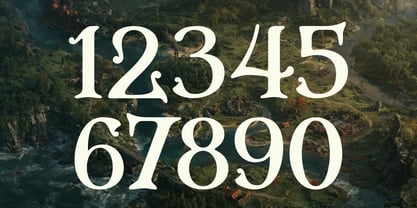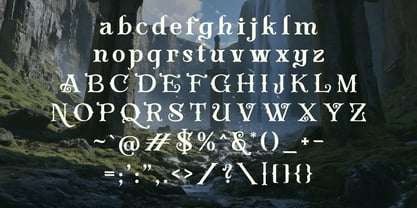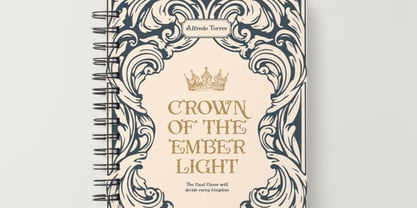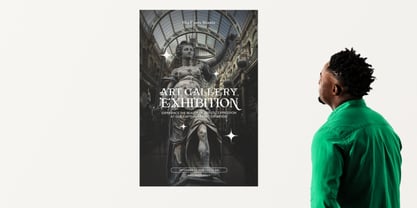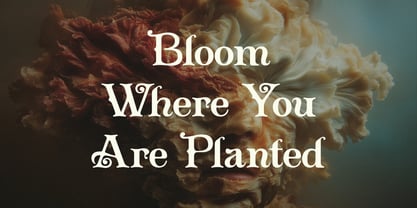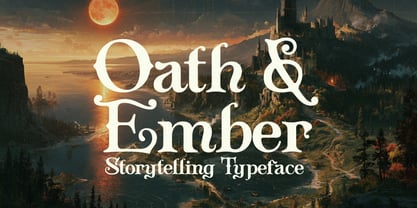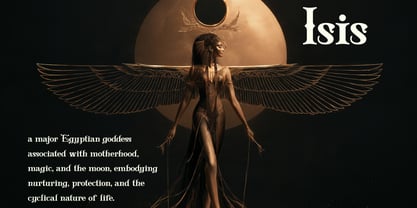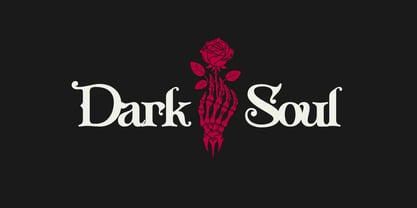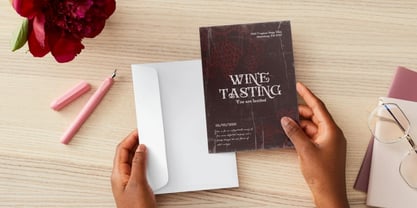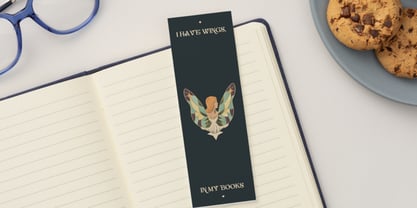
Oath & Ember
The Oath & Ember Font Family was designed by Igor Ovsyannykov and published by Hipfonts. Oath & Ember contains 1 styles. More about this family
Meet Oath & Ember, a fantasy-inspired display typeface forged for adventurers, storytellers, world-builders, and dreamers of impossible places.
Inspired by ancient legends, weathered maps, wandering minstrels, seafaring rogues, forgotten kingdoms, and firelit tales of dragons, Oath & Ember is designed to give your typography a sense of history, mystery, and myth. Its bold letterforms feel dramatic and timeless, carrying just enough rugged character to make every title feel like it belongs on the cover of a lost chronicle or carved into the gates of an ancient realm.
Oath & Ember is perfect for fantasy branding, book covers, Dungeons & Dragons campaigns, RPG graphics, game titles, posters, maps, packaging, tavern menus, festival artwork, album covers, merchandise, logos, invitations, and cinematic design.
Its strong display personality makes it especially effective for headlines and titles, where its medieval-inspired character can take center stage. Pair it with parchment textures, hand-drawn maps, heraldic symbols, dragons, swords, castles, ships, runes, or enchanted landscapes to create designs that feel instantly immersive.
Whether you're naming a legendary tavern, designing a campaign handout for your players, creating an epic fantasy novel cover, or building a brand with a little more magic in its bones, Oath & Ember gives every word the weight of a story waiting to be told.